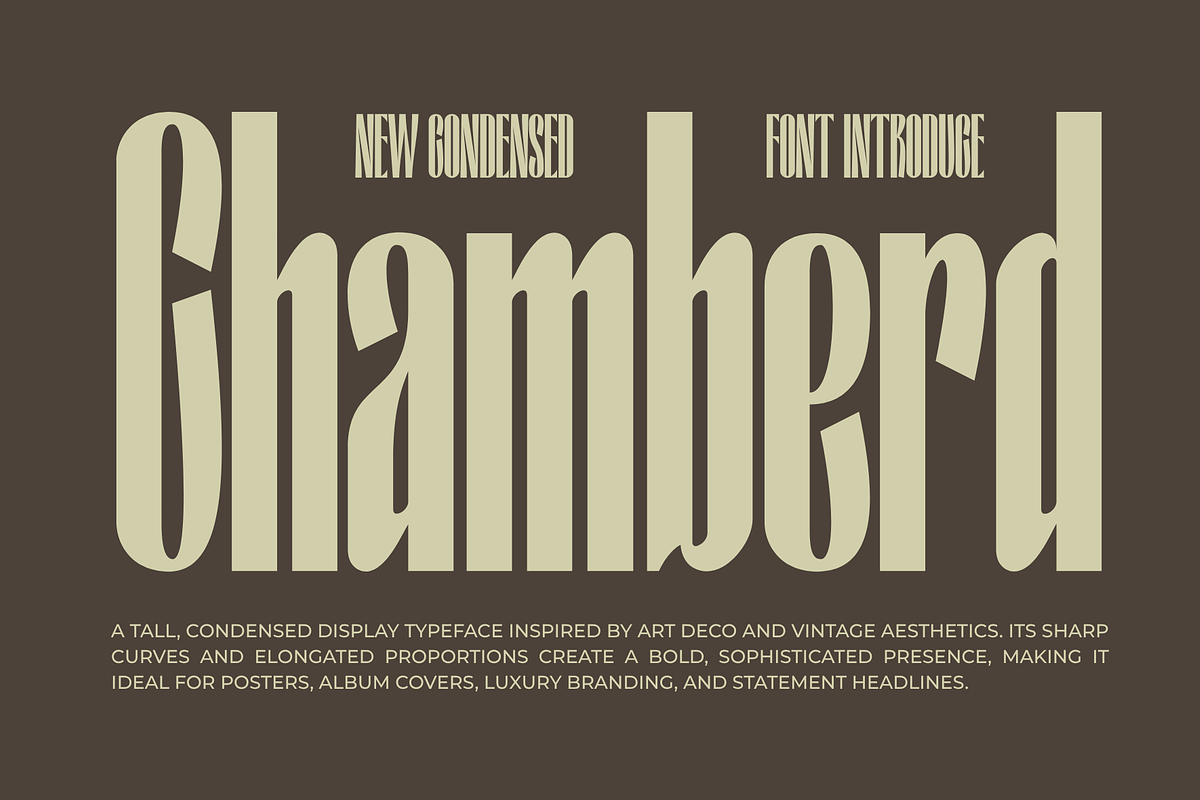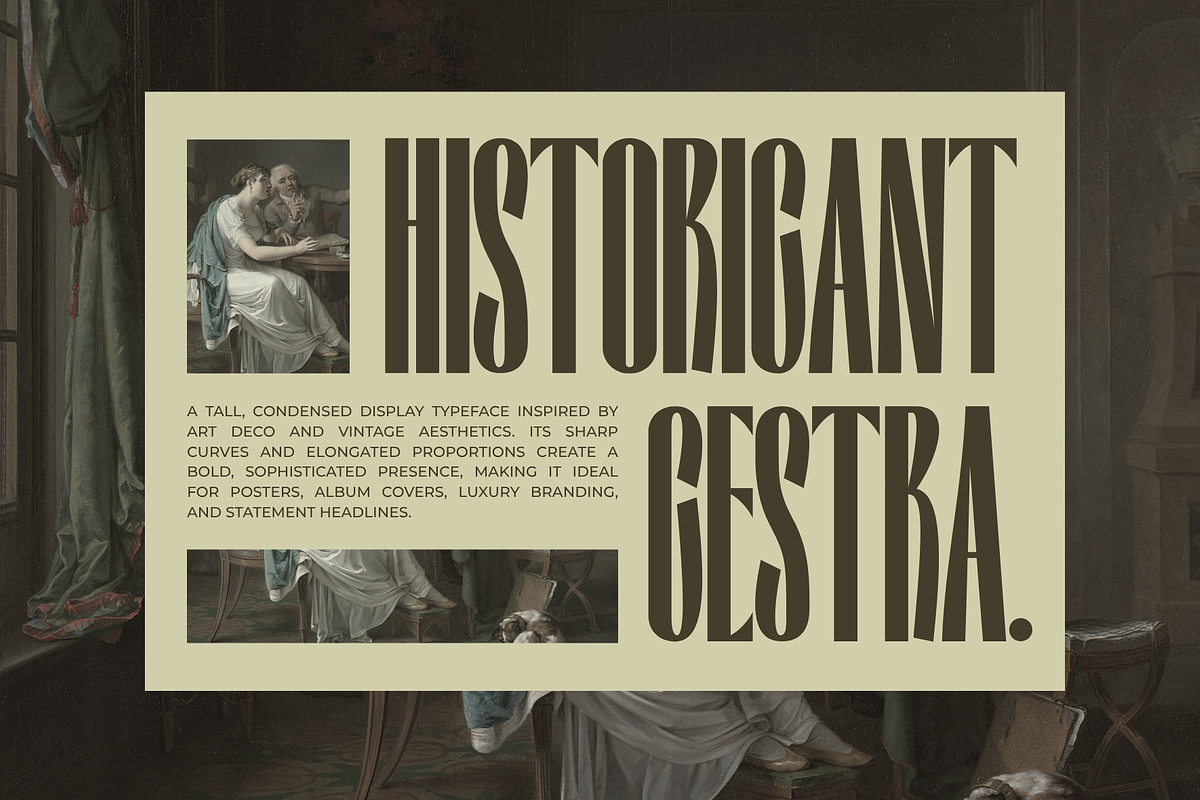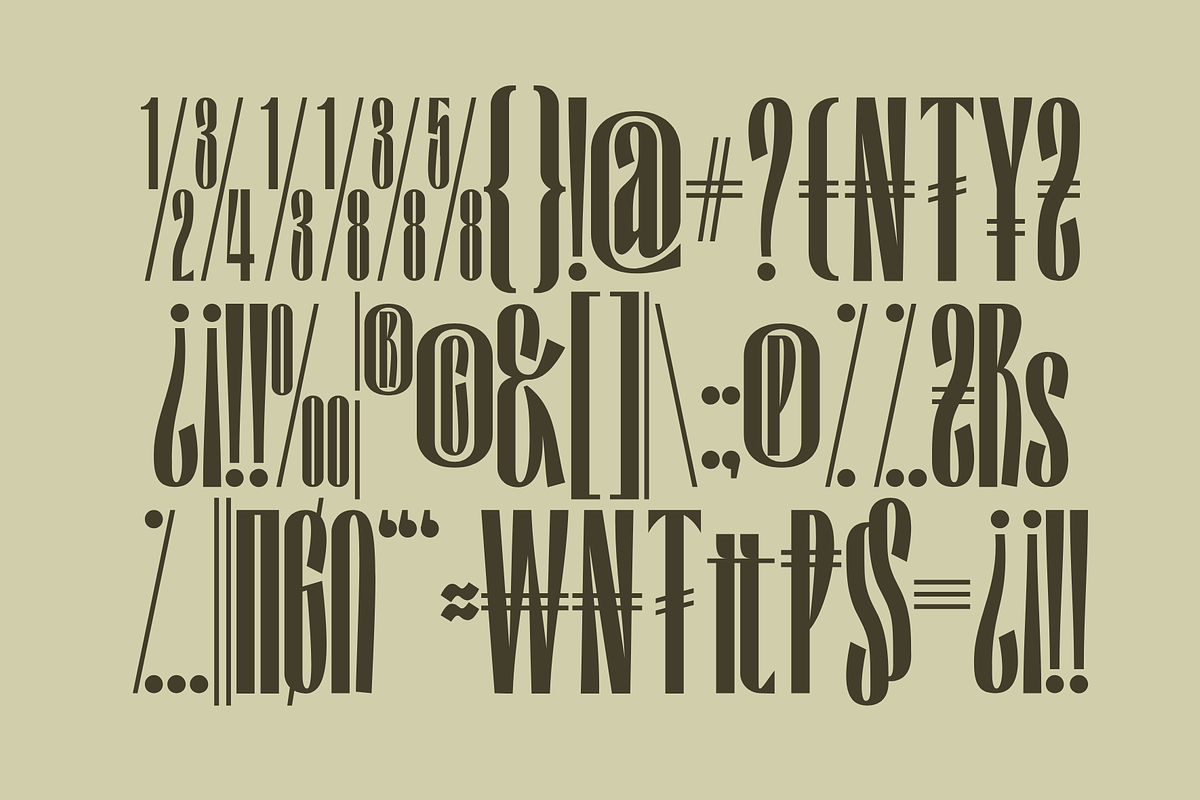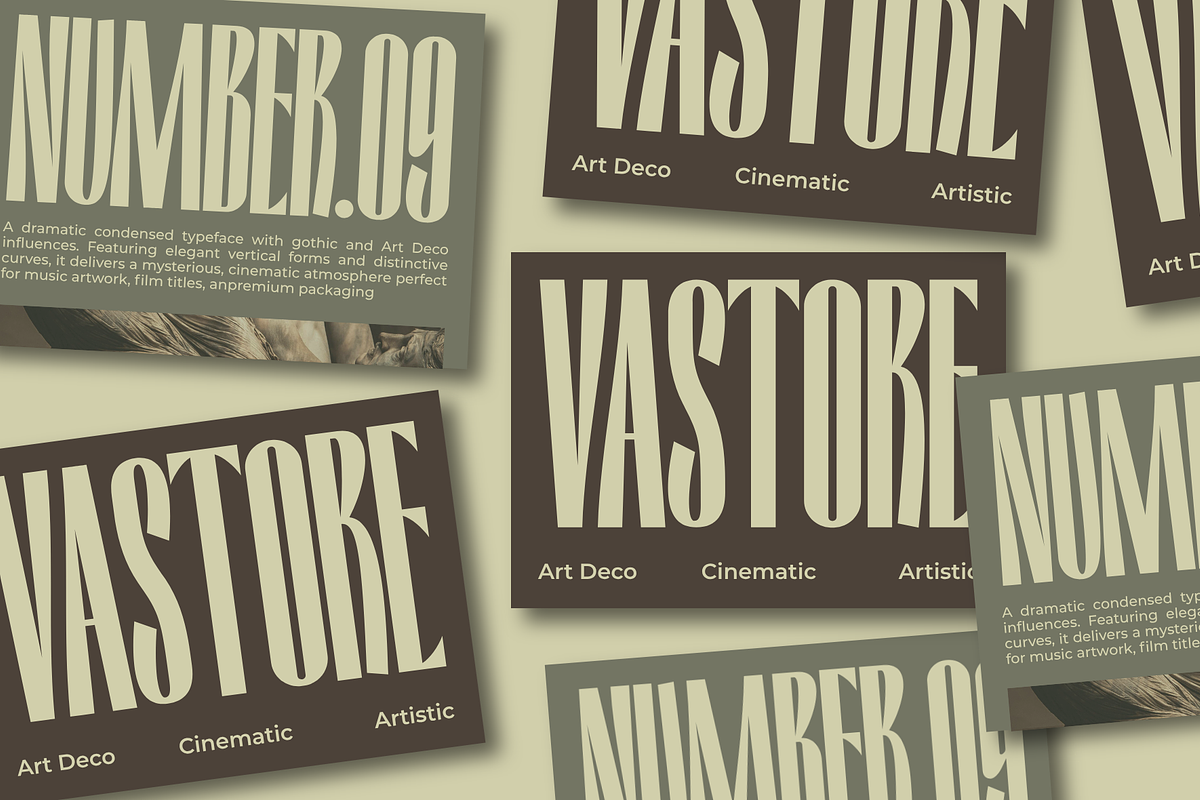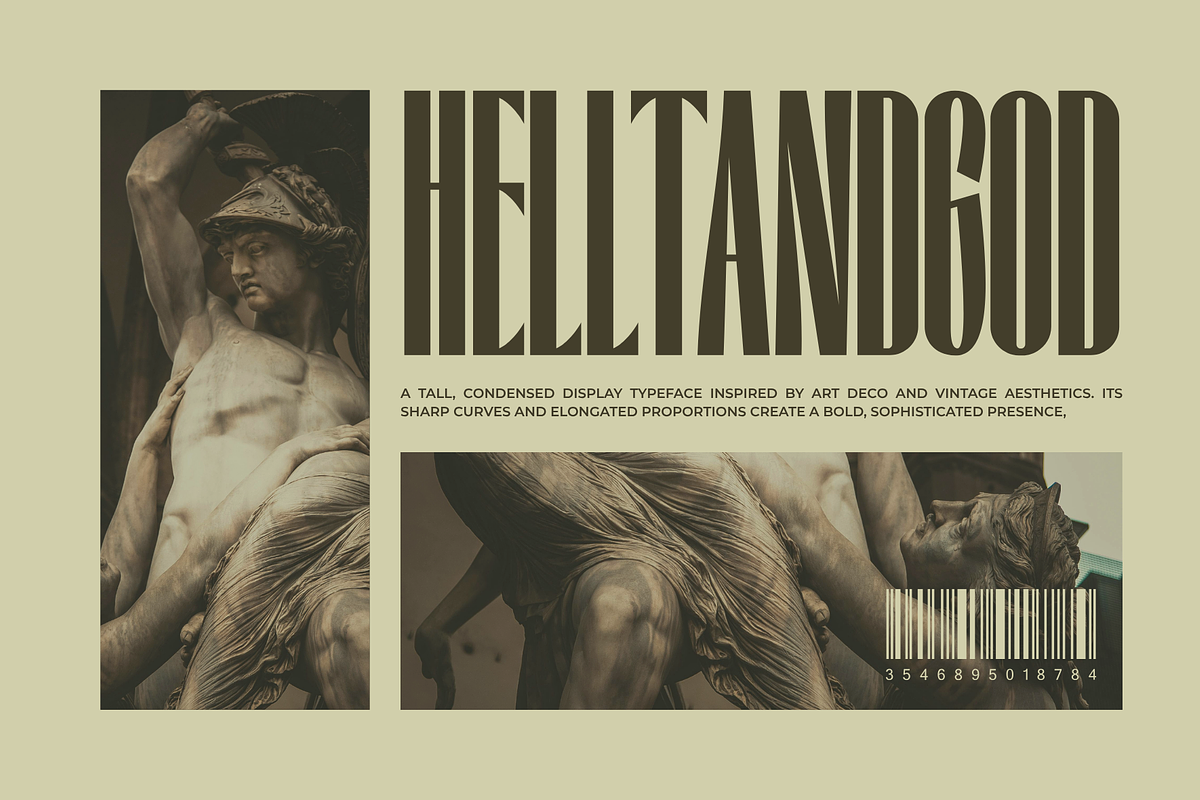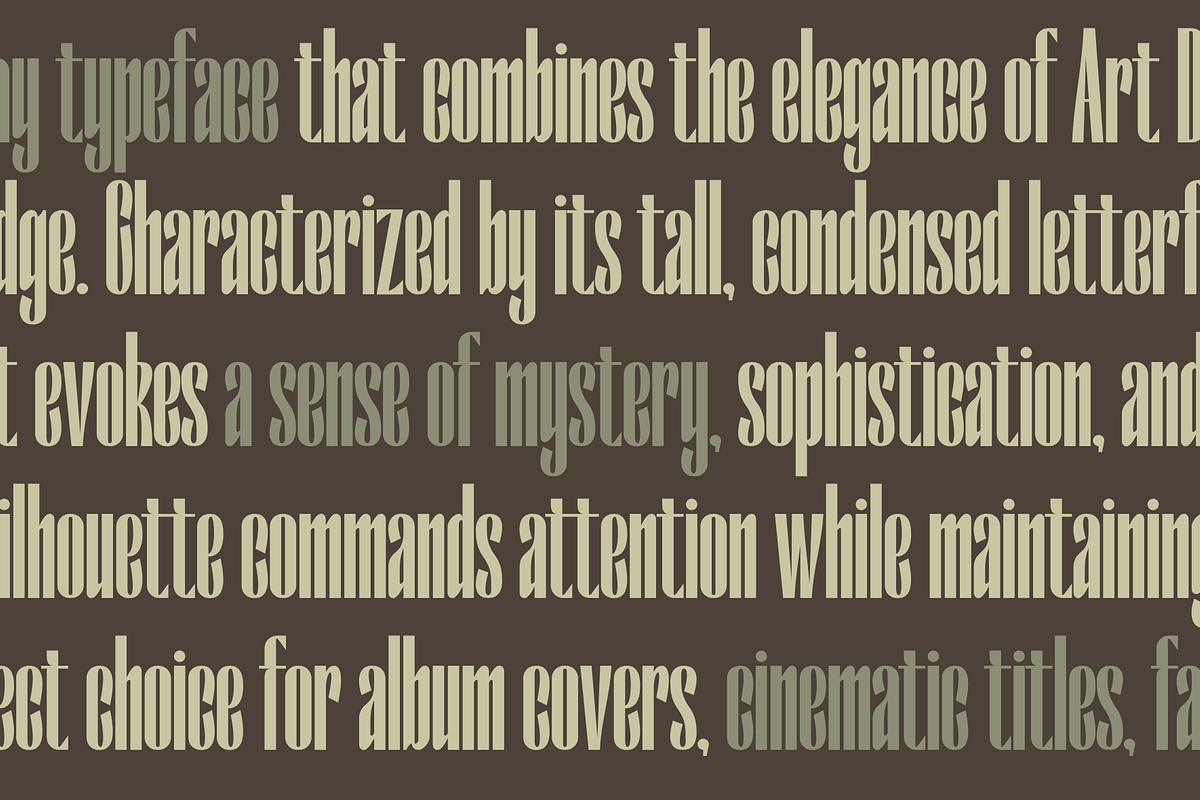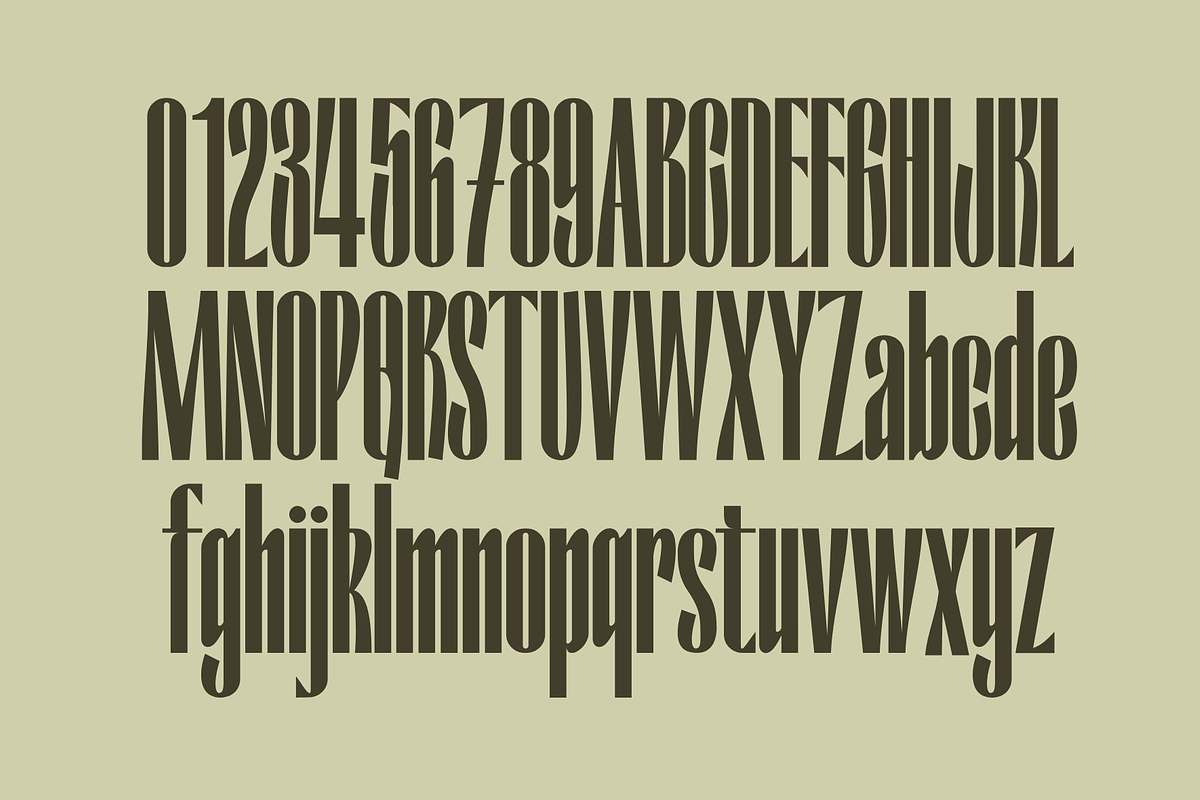
Chamberd – Luxury Condensed Typeface
Chamberd is a luxury condensed typeface that combines timeless Art Deco elegance with modern sophistication. Designed with tall proportions, sleek curves, and refined geometric details, Chamberd delivers a bold visual presence that instantly elevates any design project.
Its distinctive condensed structure allows you to create impactful headlines while maintaining a clean and elegant appearance. Inspired by vintage glamour and high-end editorial aesthetics.
The font’s elongated letterforms create a dramatic and memorable look, making it an excellent choice for designers seeking a statement typeface with both character and versatility. Whether used in large headlines or sophisticated branding materials, Chamberd brings confidence, style, and exclusivity to every composition.